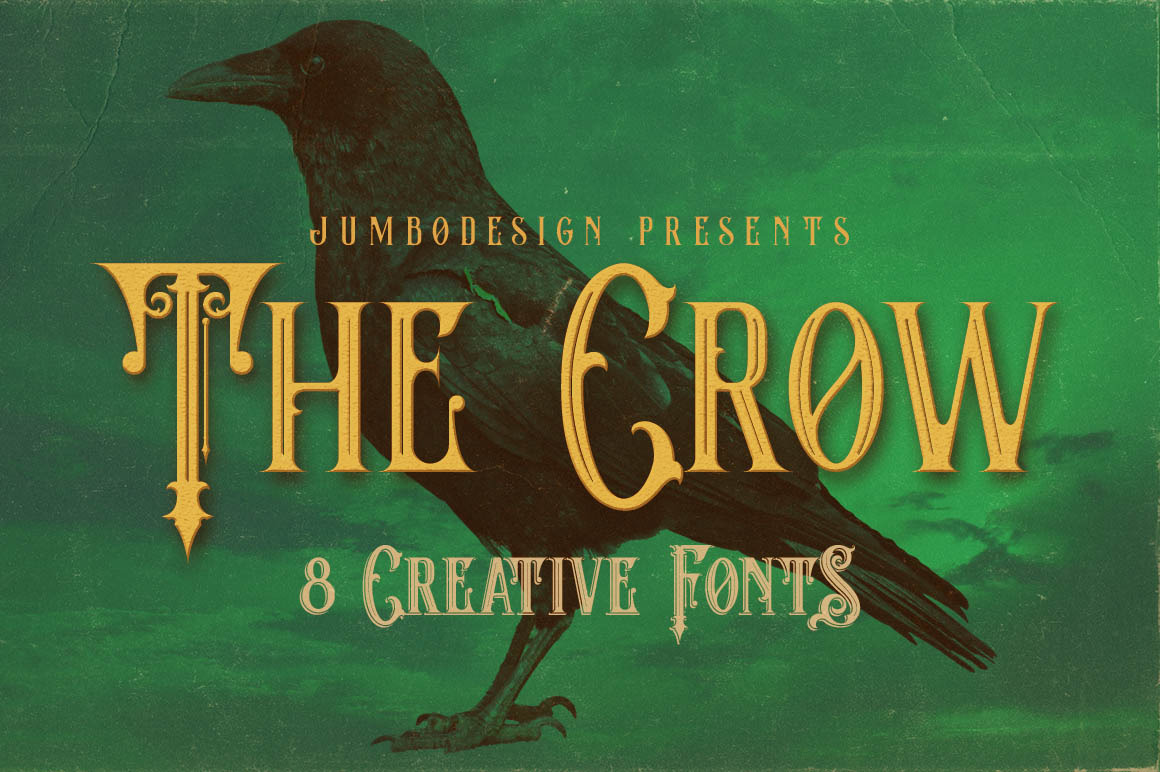
The Crow - Vintage Style Font
Unique retro or vintage style custom serif font with 8 styles: regular and grunge, inline and inline grunge, shadow and shadow grunge, inline shadow and inline shadow grunge.